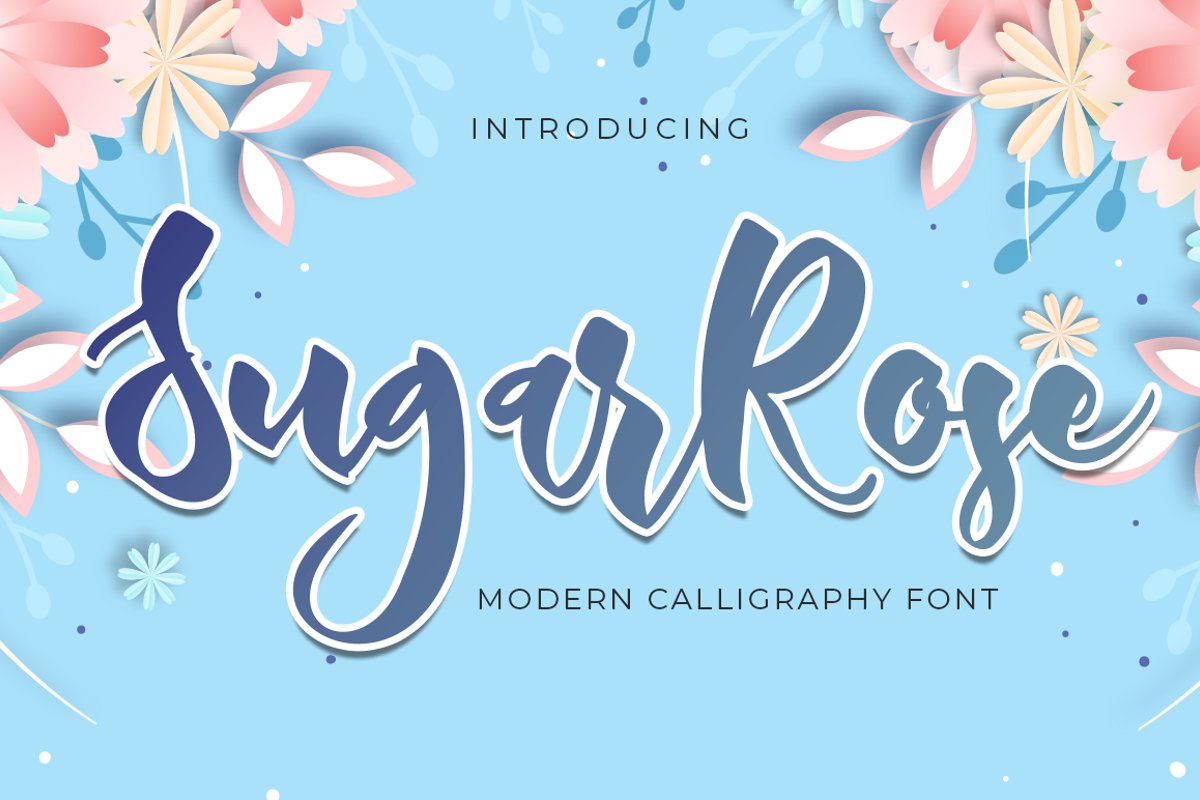
Sugar Rose
SugarRose
Introducing of our new product the name is Sugar Rose a Bouncy Script Font. Inspired by script calligraphy this font is a fun theme very good for, book cover, poster, t-shirt, quote, logotype, craft and etc
Sugar Rose